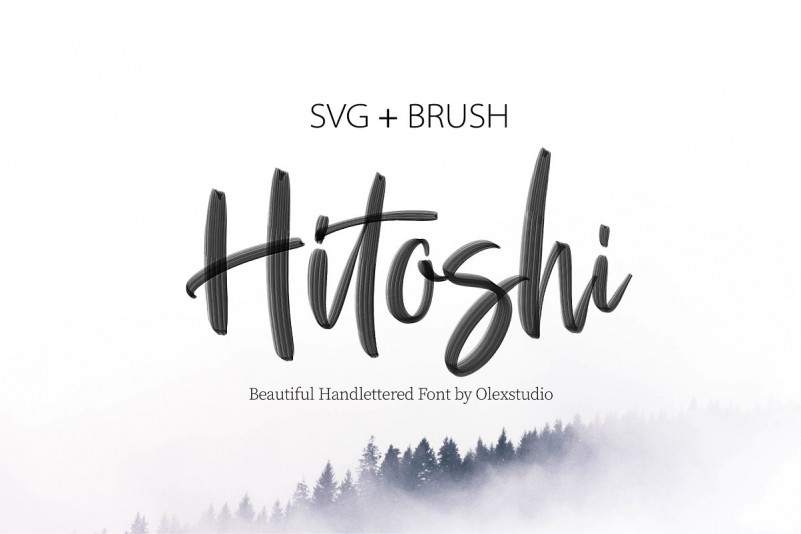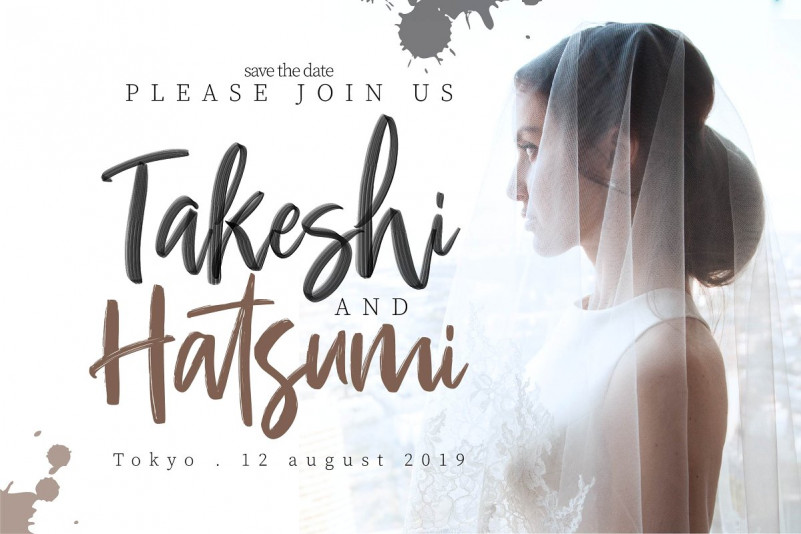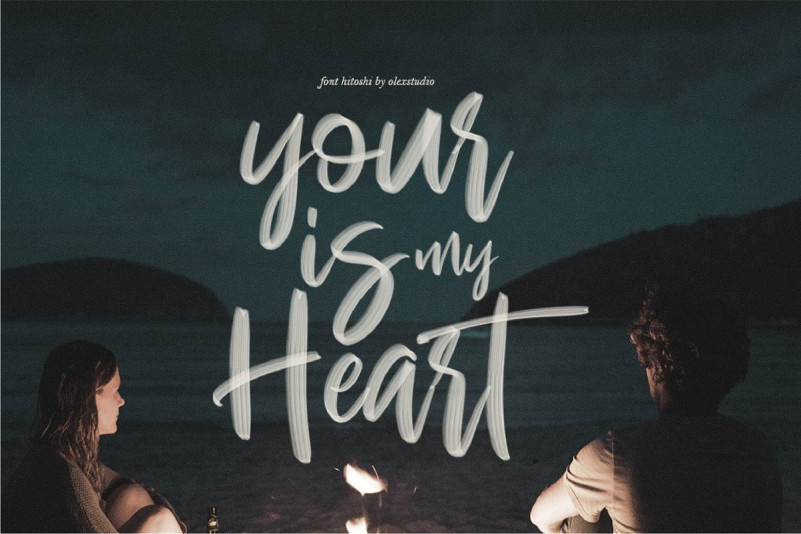
Hitoshi Font
HITOSHI is a beautiful SVG + BRUSH font, This Font will look gorgeous on all your designs, invitation, book, branding materials, logo’s, t-shirt, poster and all project design other.